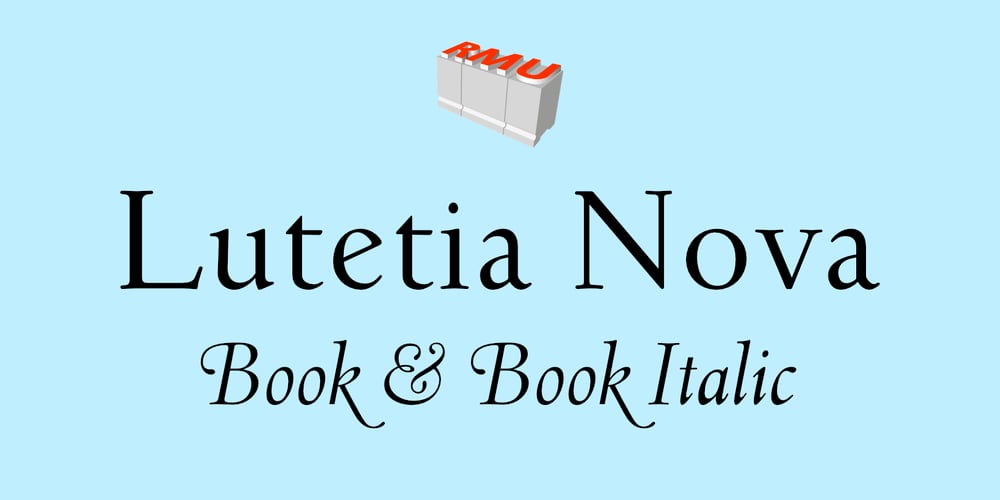
Lutetia Nova Font Family was designed by Ralph M. Unger and published by RMU. Lutetia Nova contains 2 styles and family package options. Jan van Krimpen’s famous Lutetia, released at the late 1920s, revived by a complete fresh design.To get access to all ligatures in both styles, it is recommended to activate Discretionary Ligatures too.